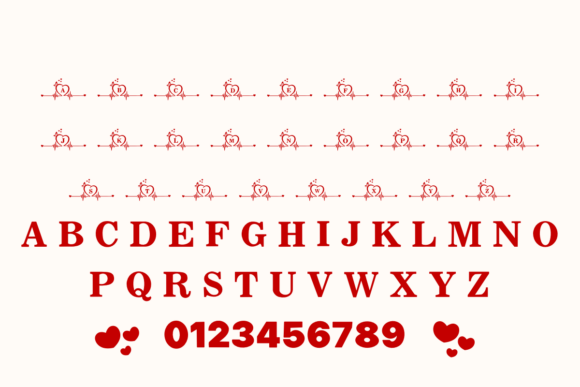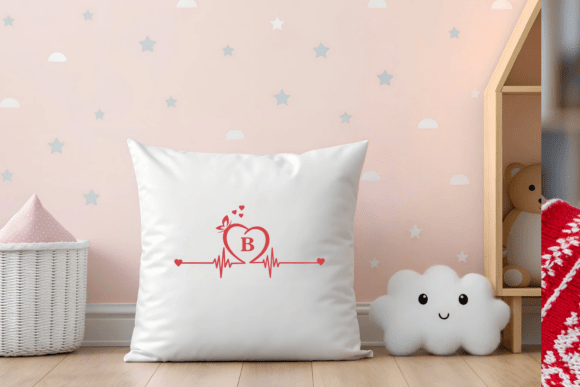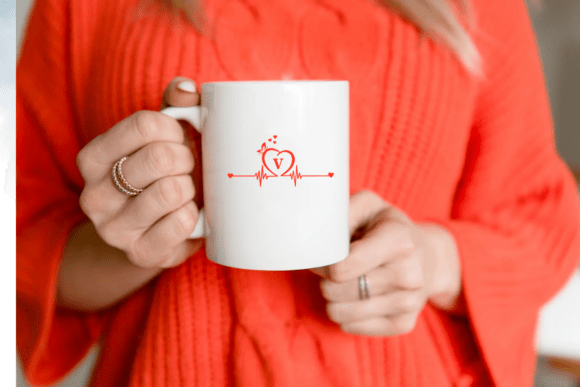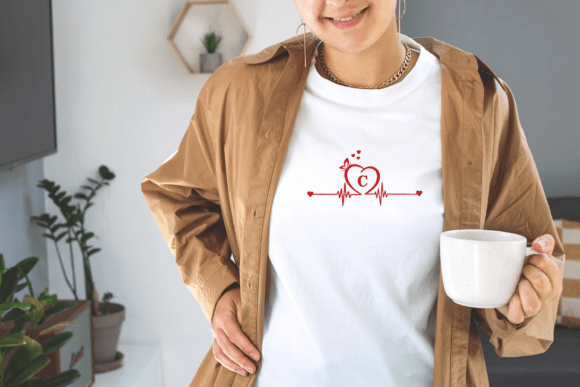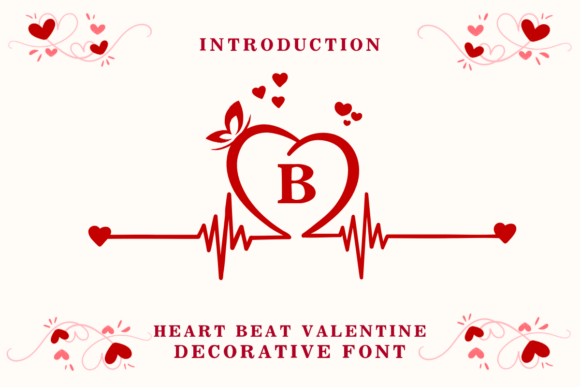
Heart Beat Valentine Font: The Perfect Addition to Your Creative Projects
Are you looking for a unique and lovely decorative font to add a touch of elegance to your creative projects? Look no further than the Heart Beat Valentine Font! This charming font is sure to capture the hearts of designers, crafters, and anyone looking to add a romantic flair to their work.
What is Heart Beat Valentine Font?
Heart Beat Valentine is a beautifully designed decorative font that features a distinctive heartbeat-inspired pattern. The font’s unique design makes it perfect for creating romantic and whimsical designs, from Valentine’s Day cards and invitations to wedding stationery and more.
Why You’ll Love Heart Beat Valentine Font
So, what makes Heart Beat Valentine Font so special? Here are just a few reasons why you’ll love adding it to your creative projects:
• Unique Design: The Heart Beat Valentine Font features a one-of-a-kind design that’s sure to make your projects stand out. The font’s distinctive heartbeat pattern adds a touch of whimsy and romance to any design.
• Versatile: This font is perfect for a wide range of creative projects, from digital designs to print materials. Use it to create stunning Valentine’s Day cards, wedding invitations, and more.
• Elegant: The Heart Beat Valentine Font exudes elegance and sophistication, making it perfect for high-end designs. The font’s refined design ensures that your projects will look professional and polished.
Design Ideas Using Heart Beat Valentine Font
The Heart Beat Valentine Font is incredibly versatile, and can be used for a wide range of design projects. Here are a few ideas to get you started:
• Valentine’s Day Cards: Create stunning Valentine’s Day cards using the Heart Beat Valentine Font. Add a romantic message, some cute graphics, and you’re done!
• Wedding Invitations: This font is perfect for wedding invitations, especially for couples who want to add a touch of romance to their big day.
• Romantic Quotes: Use the Heart Beat Valentine Font to create beautiful romantic quotes. You could create a stunning image with a quote like “Love is in the air” or “You are my forever Valentine”.
• Crafting Projects: This font is also perfect for crafters who love to create handmade cards, gift tags, and other paper crafts.
In conclusion, the Heart Beat Valentine Font is a lovely decorative font that’s perfect for designers, crafters, and anyone looking to add a romantic touch to their creative projects. With its unique design, versatility, elegance, and ease of use, this font is sure to become a favorite in your design arsenal. So why wait? Download the Heart Beat Valentine Font today and start creating stunning designs that will capture the hearts of everyone who sees them!